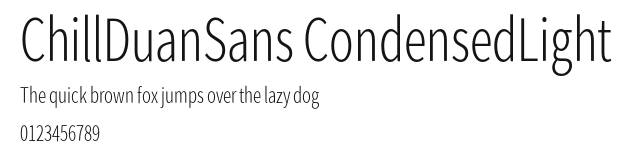
• Font Name: ChillDuanSans CondensedLight
• Full Font Name: 寒蝉端黑体CondensedLight
• Designer: ChillDuanSans {Warren2060}; Source Han Sans {Ryoko NISHIZUKA 西塚涼子 (kana, bopomofo & ideographs); Paul D. Hunt (Latin, Greek & Cyrillic); Sandoll Communications 산돌커뮤니케이션, Soo-young JANG 장수영 & Joo-yeon KANG 강주연 (hangul elements, letters & syllables)}
• Manufacturer: ChillType&Adobe
About ChillDuanSans CondensedLight.otf
ChillDuanSans CondensedLight.otf is a modern, elegant sans-serif font designed for ultimate readability and visual harmony. Perfect for branding, headlines, web design, and print materials.